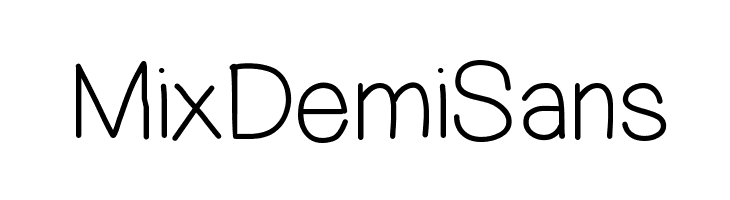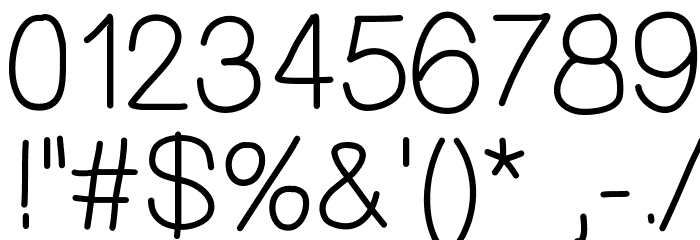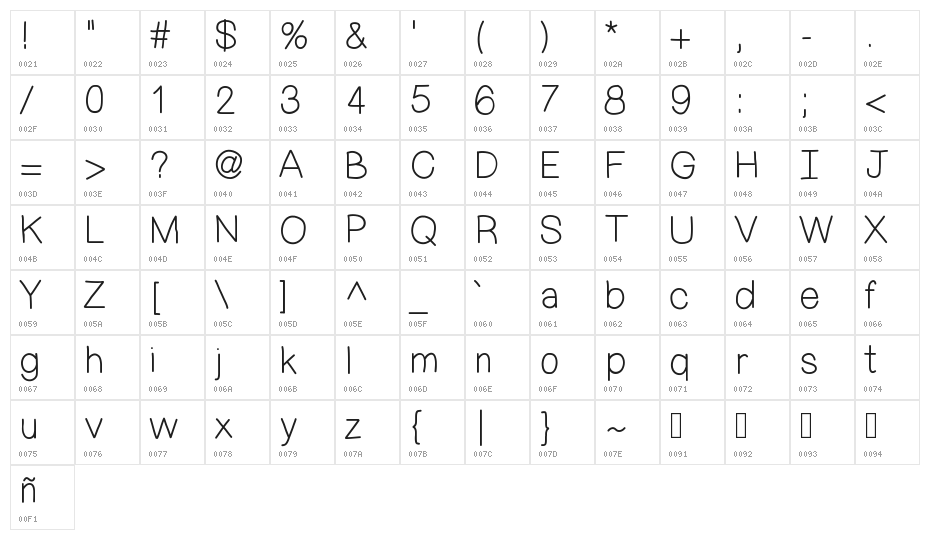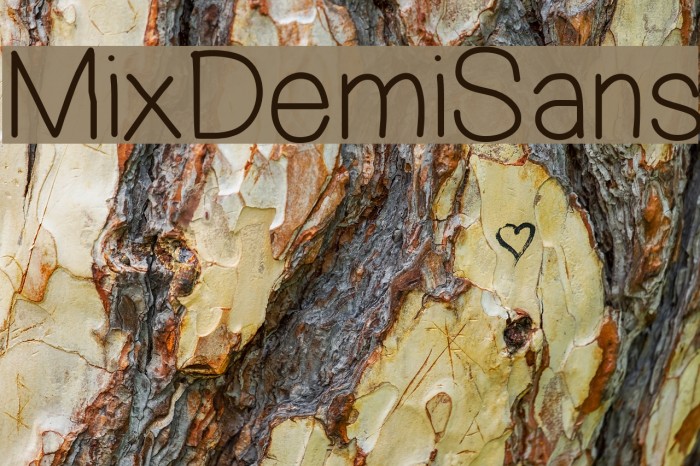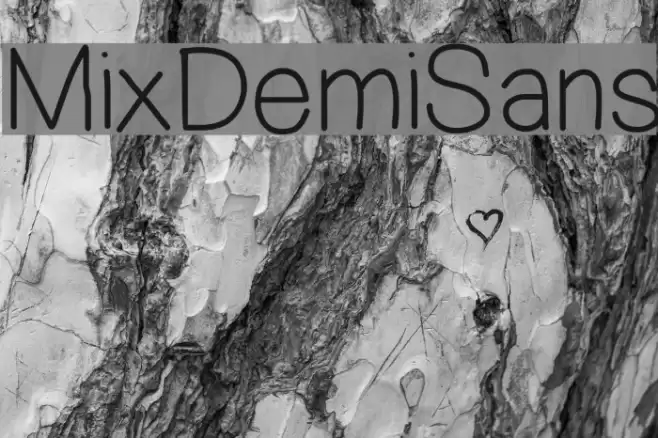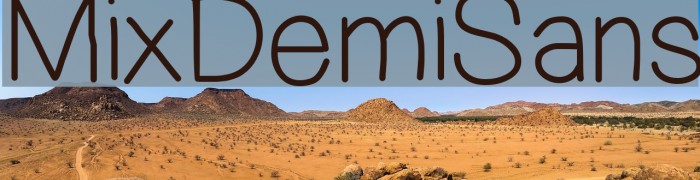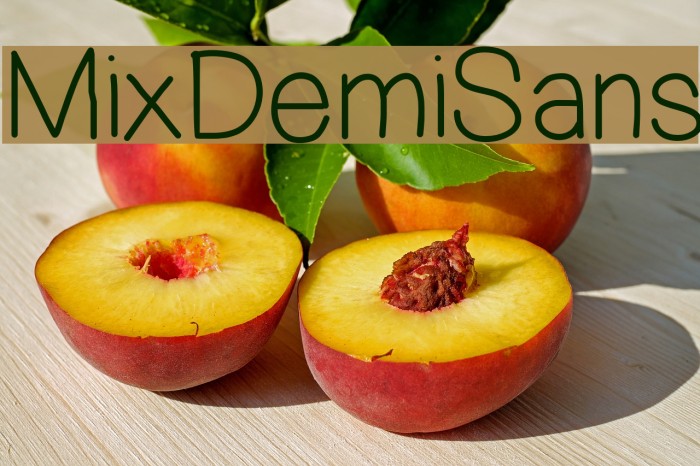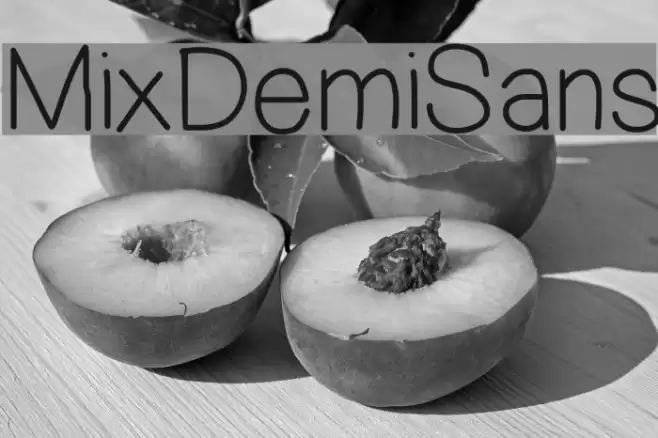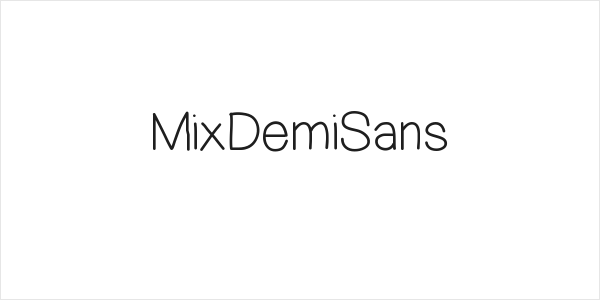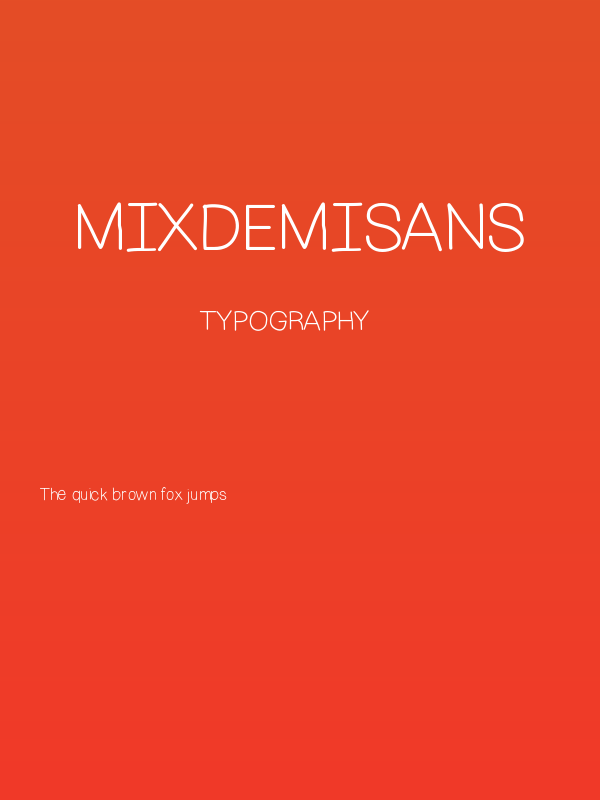
MixDemiSans Font
MixDemiSans Description
This font features a clean and modern sans-serif style with a slightly rounded appearance, giving it a friendly and approachable feel. The characters are evenly spaced, contributing to its readability and versatility. The uppercase letters are bold and prominent, while the lowercase letters maintain a consistent weight, offering a harmonious balance. The numerals are clear and distinct, making them suitable for various applications. Special characters are well-defined, enhancing the font's utility in diverse contexts.
| Proposed Projects | Ideal for branding, web design, advertising, and editorial projects where a modern and approachable look is desired. |